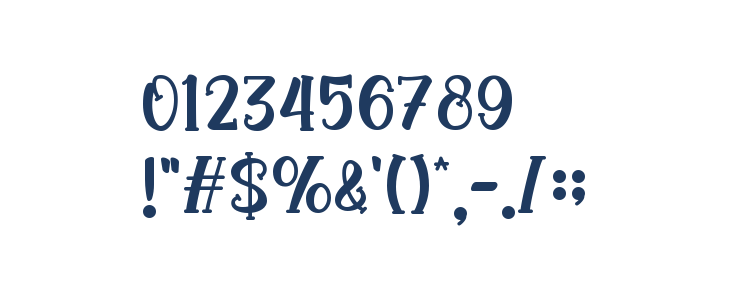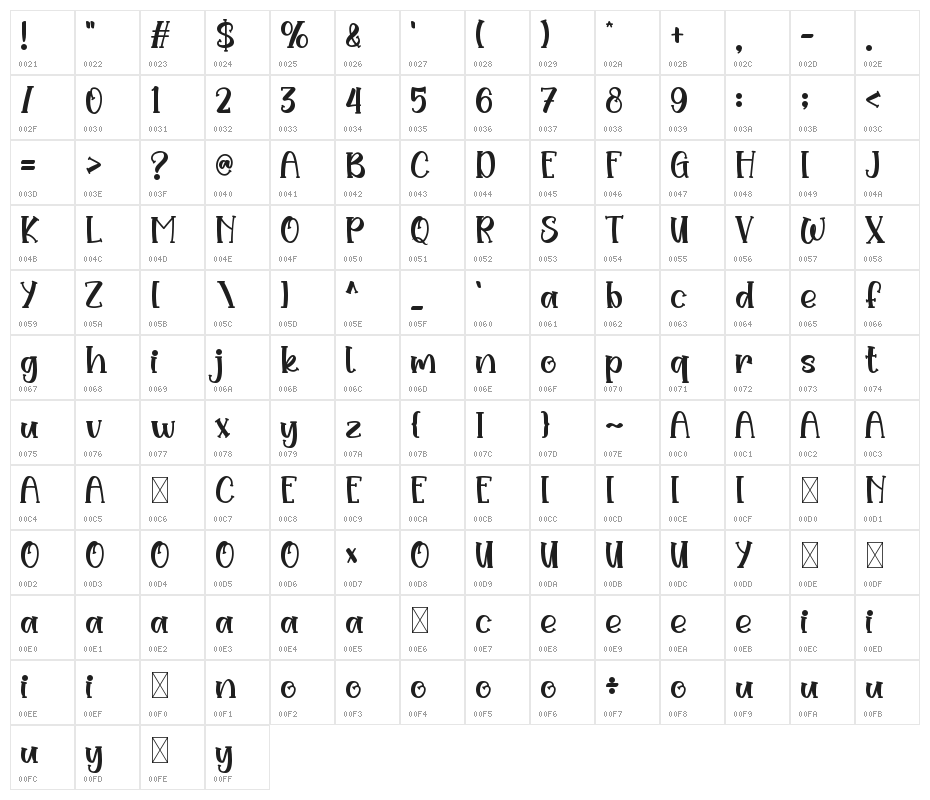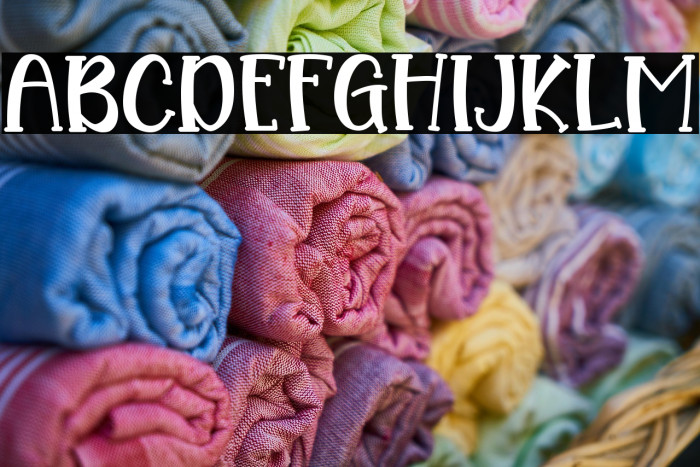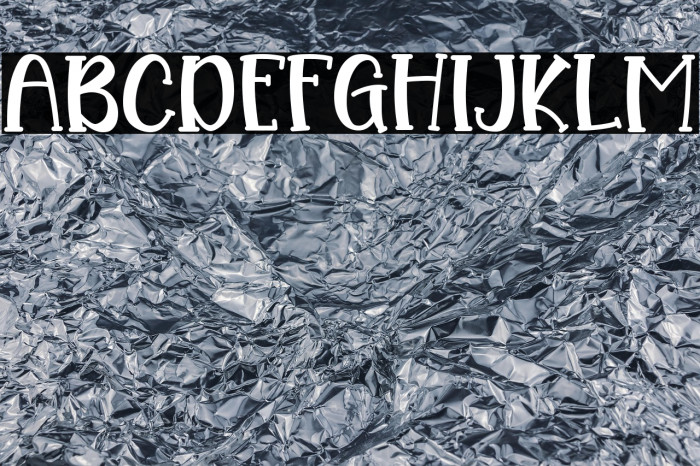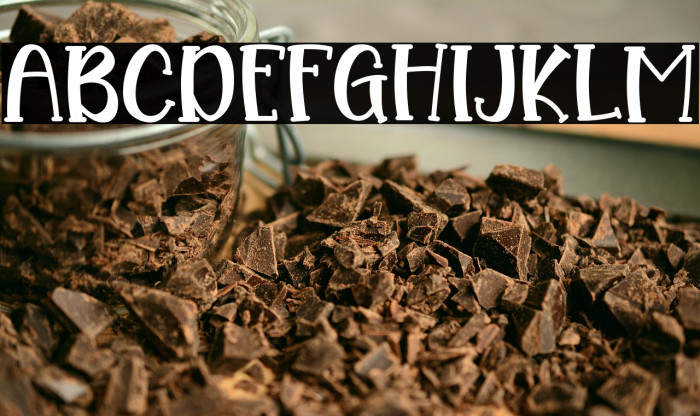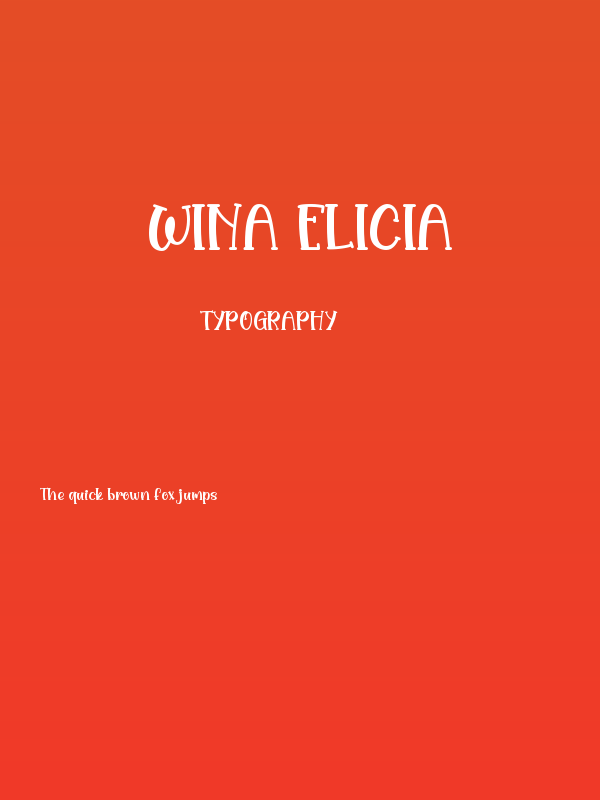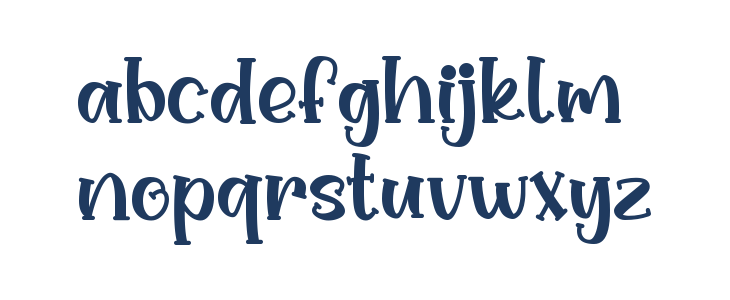
Wina Elicia Font
Wina Elicia Description
This font features a playful and whimsical style with a hand-drawn appearance. The characters have a bold and slightly irregular form, giving them a lively and dynamic feel. The uppercase letters are distinct with varying stroke widths, while the lowercase letters maintain a consistent style that complements the uppercase. Numbers and special characters follow the same playful design, making the font suitable for creative and informal projects. The overall look is both friendly and approachable, ideal for capturing attention in a fun and engaging way.
Proposed ProjectsIdeal for children's books, greeting cards, playful branding, and creative posters.